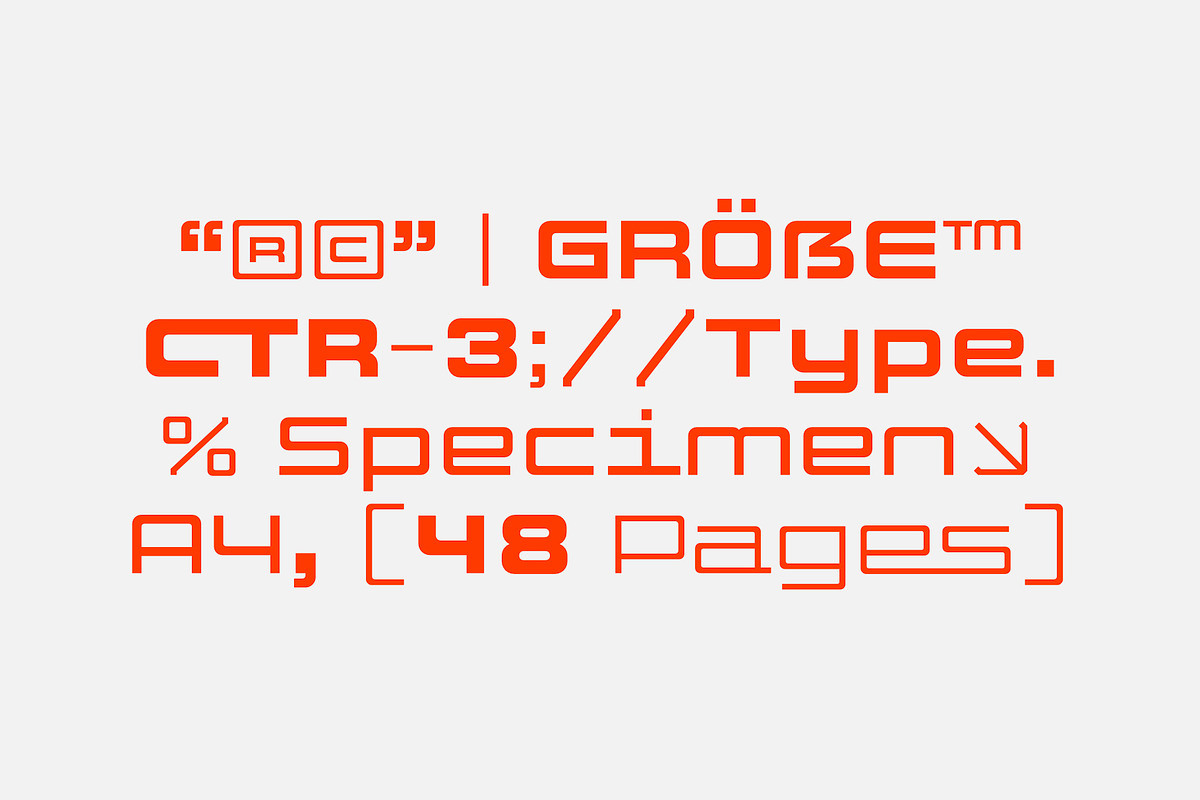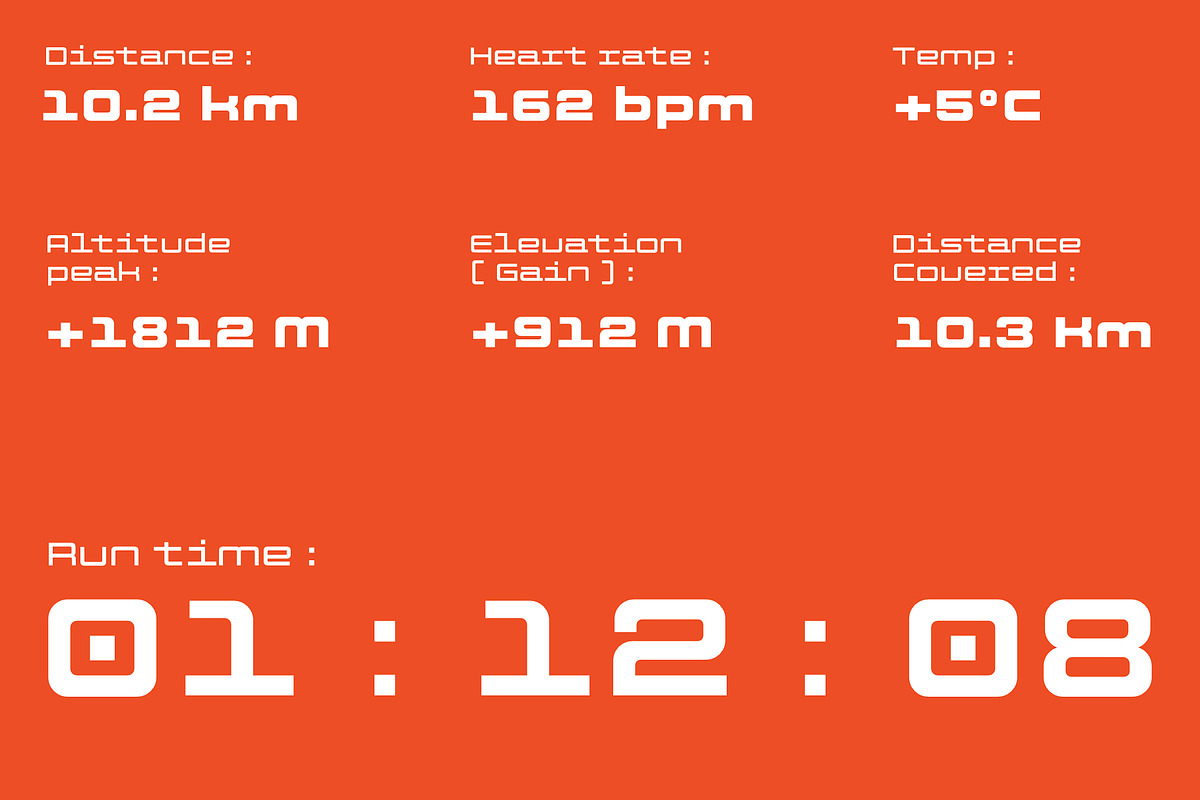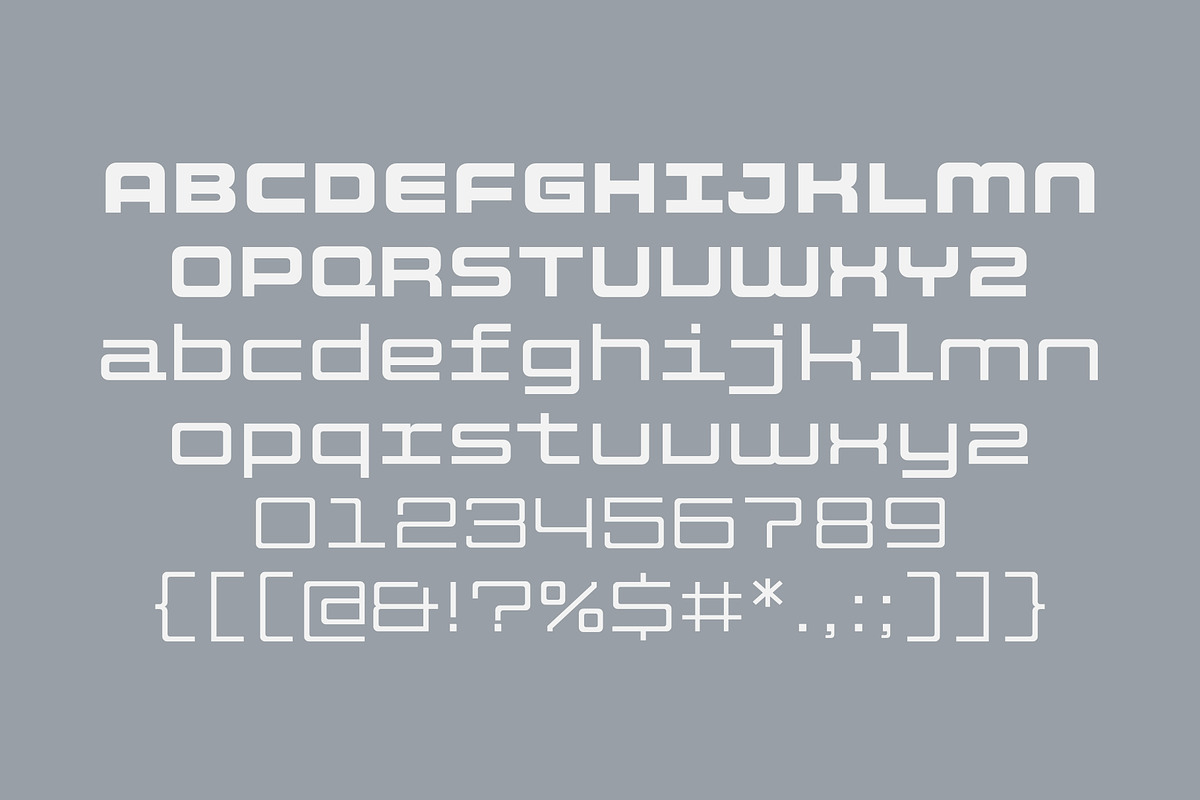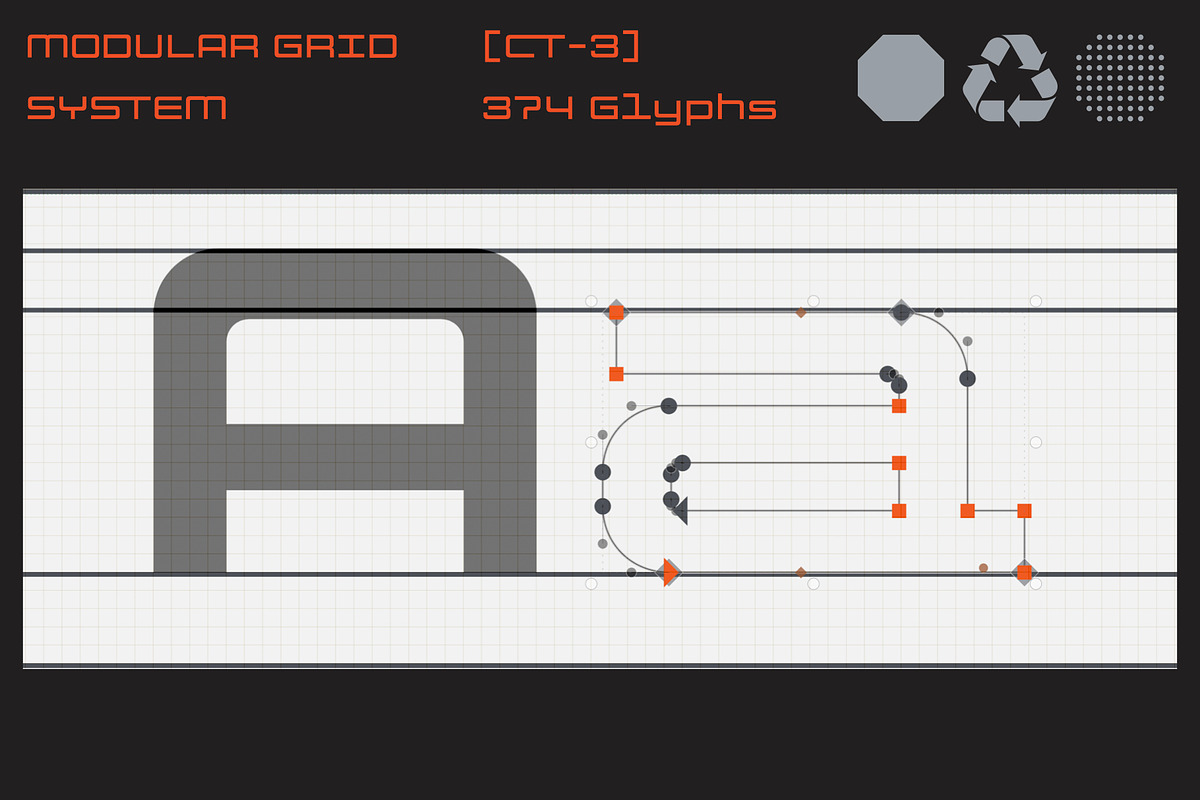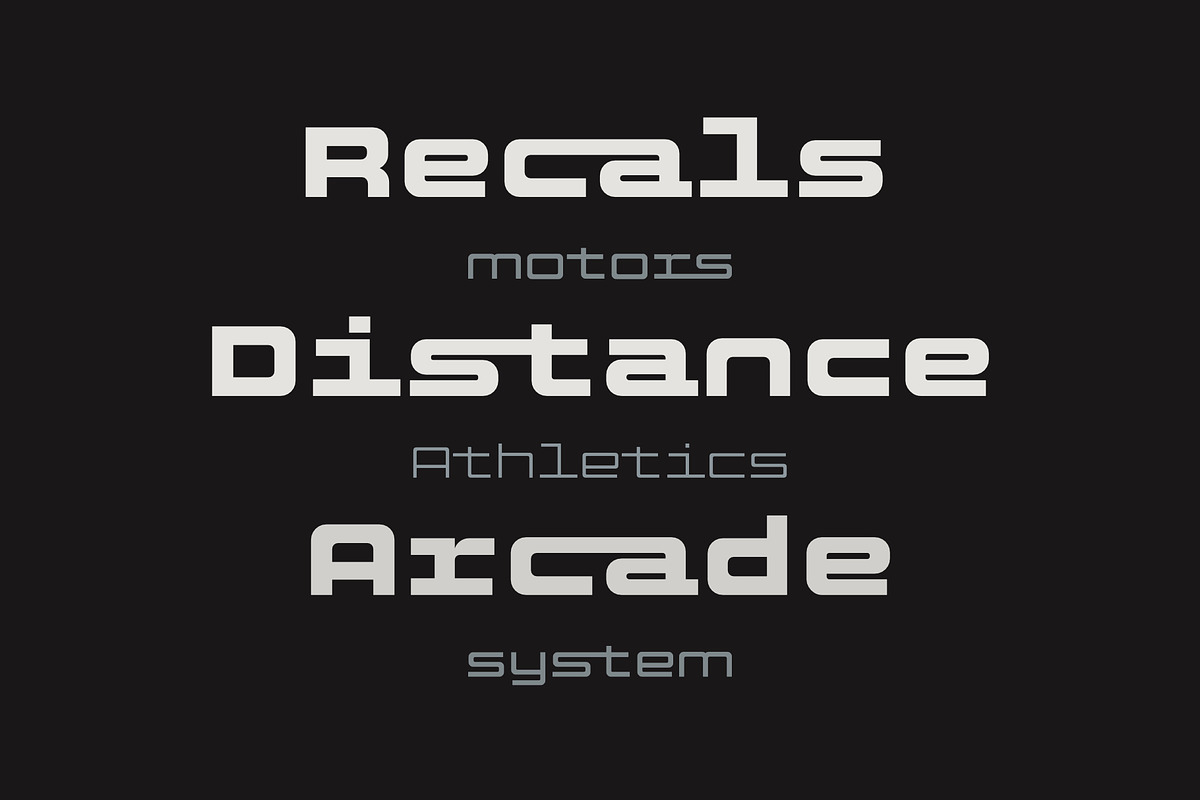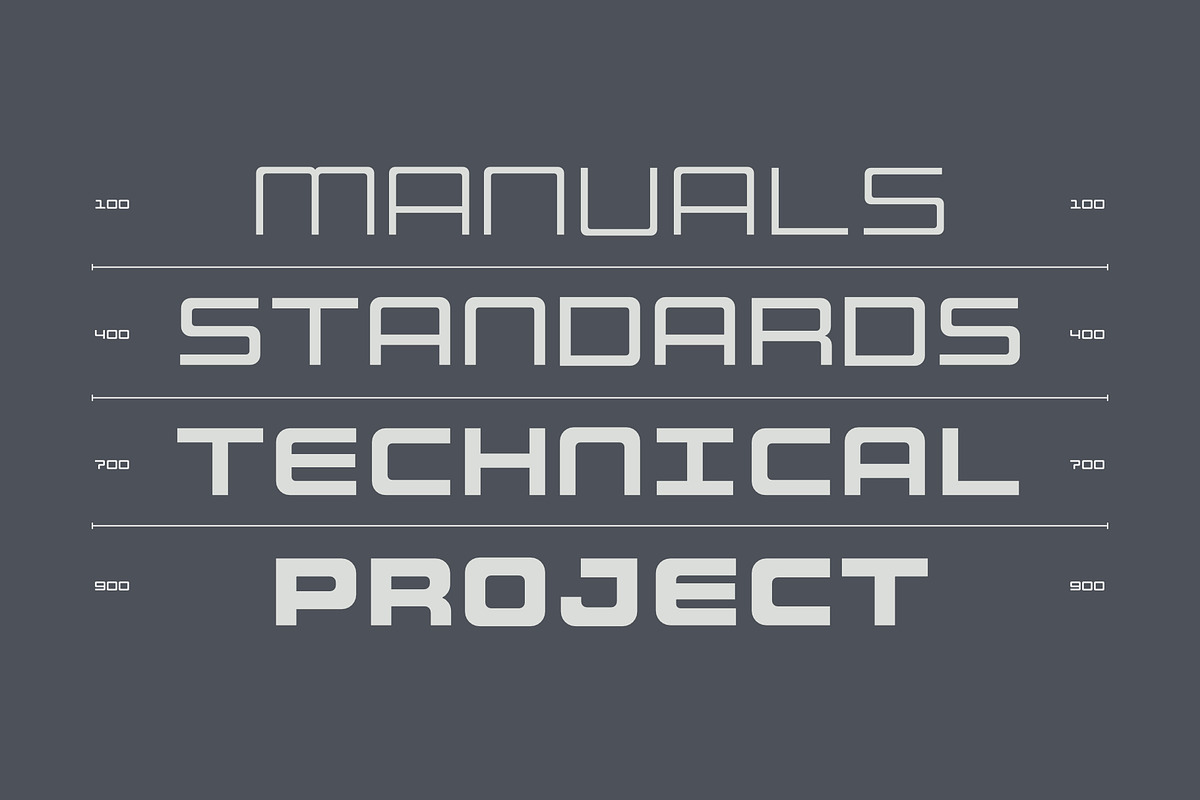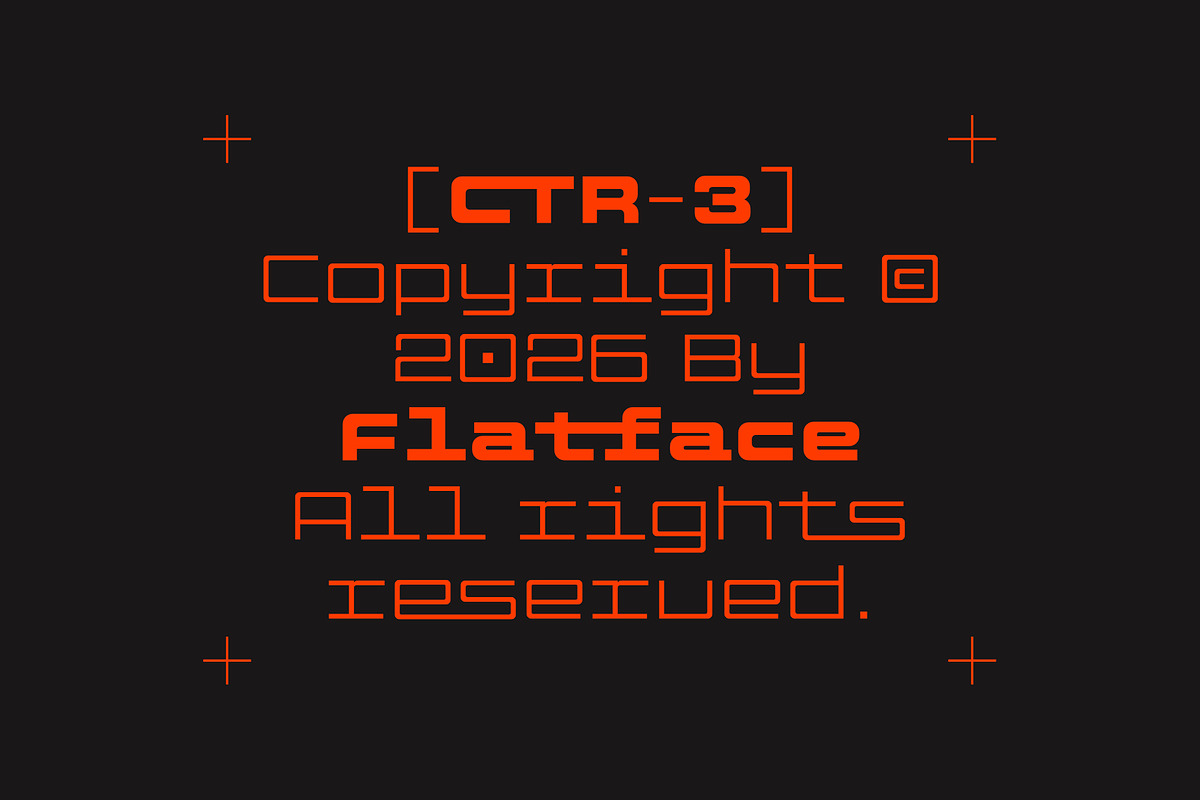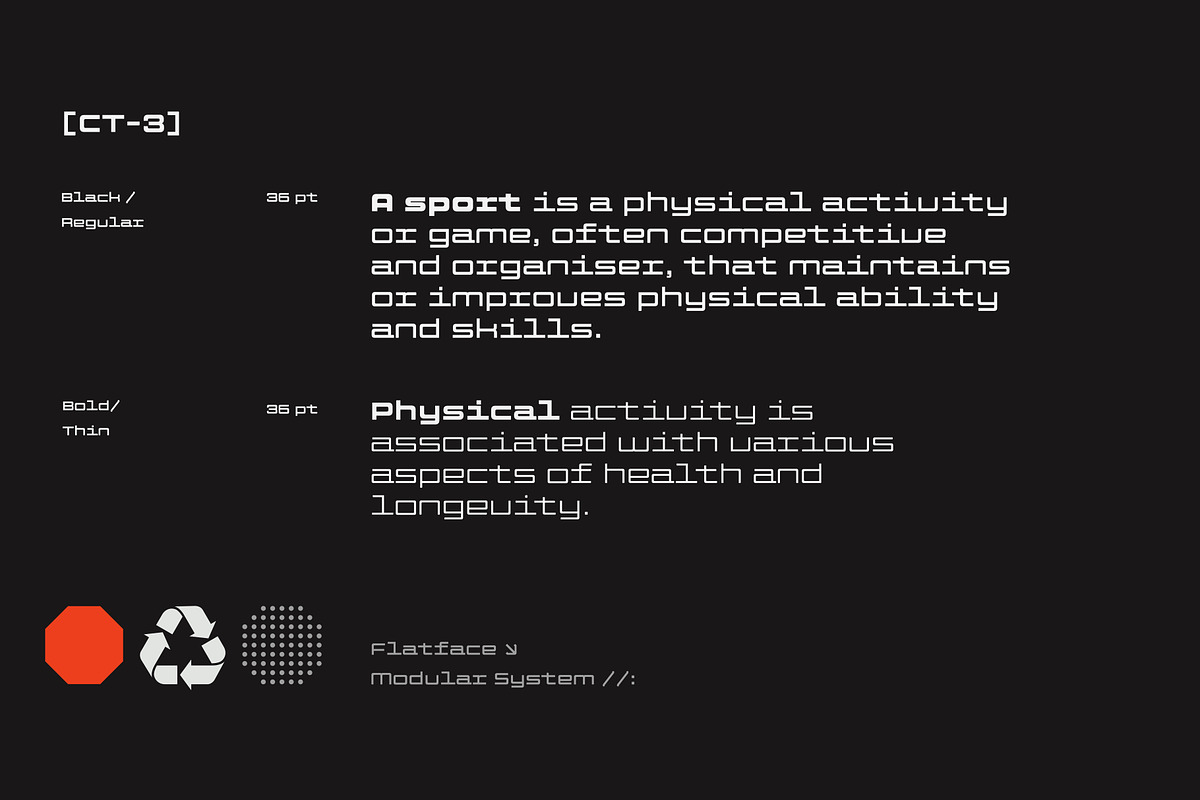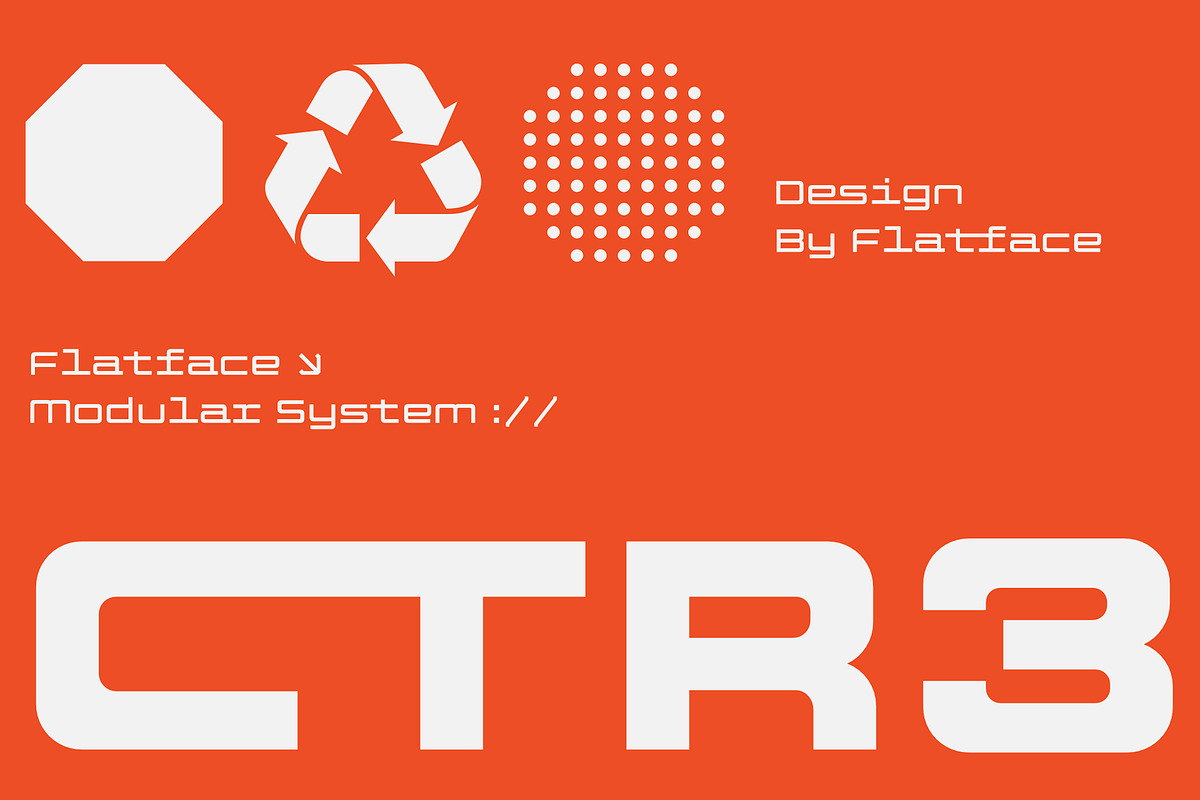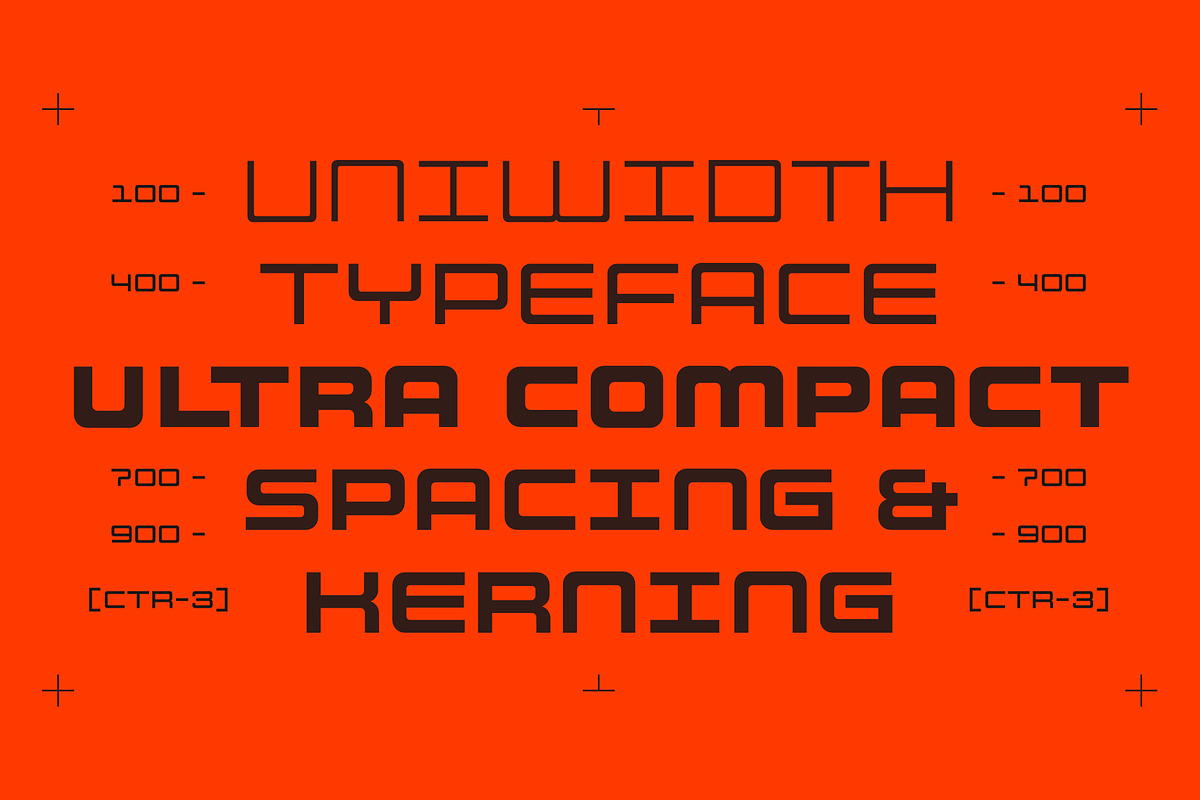
Flatface CTR-3
Flatface CTR-3 is a wide and compact typeface built around a modular geometric system. Its uniwidth design keeps the same character widths across all weights, allowing you to switch between Thin, Regular, Bold, and Black without changing the overall layout.
Designed with a structured yet contemporary character, CTR-3 works well for posters, branding, editorial design, technology, gaming, fashion, music, and display typography.
THE FAMILY
• Thin • Regular • Bold • Black
• Modular geometric construction • Wide & compact proportions • Uniwidth design • 4 weights • 374 glyphs per weight • Optical kerning • OpenType features